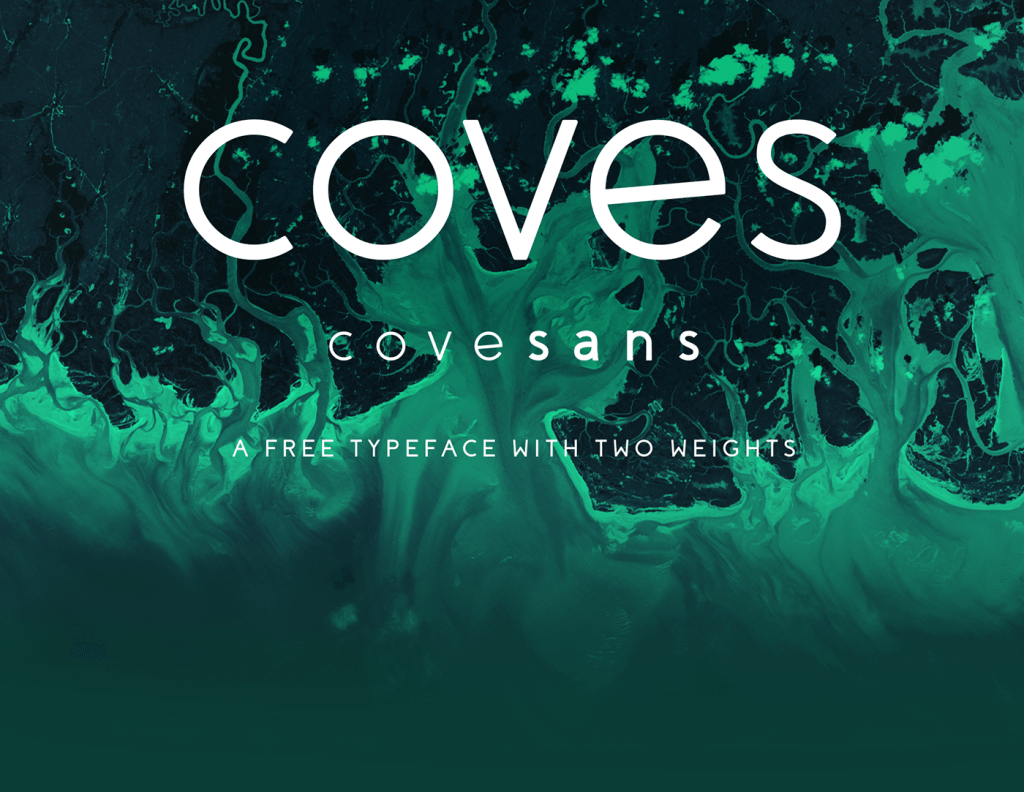
Coves is a new modern sans-serif font desinged by Jack Harvatt, available to download for free, for personal use. For commercial license you can contact the designer by email, which can be found on the download page of the font. The font comes in 2 styles, Light and Bold, it comes with numbers, special characters and glyphs.